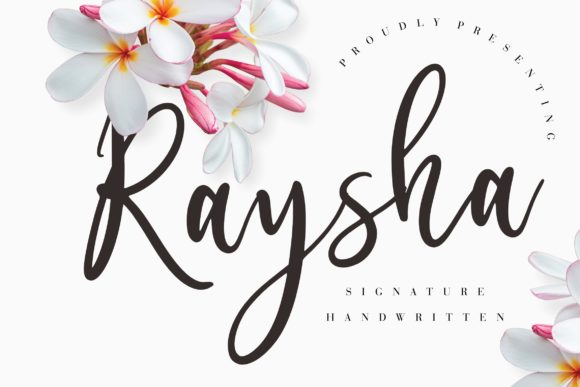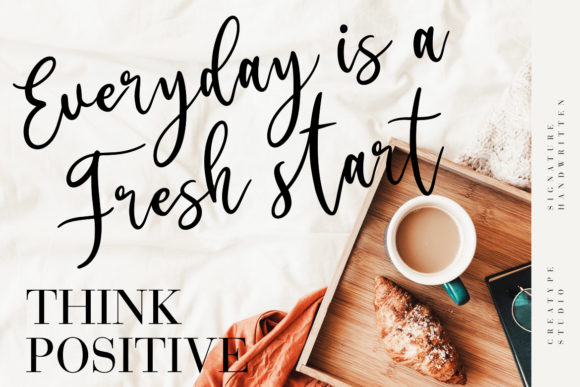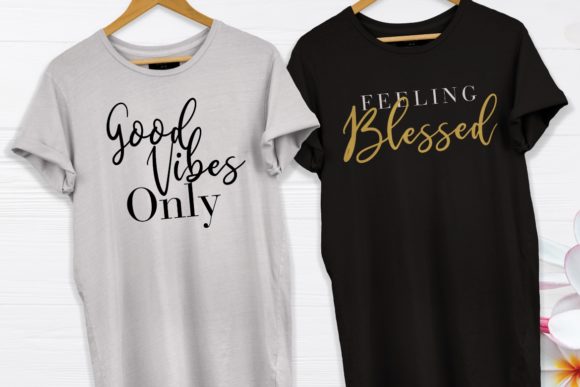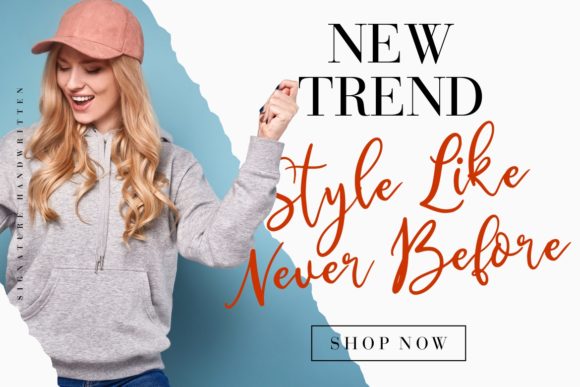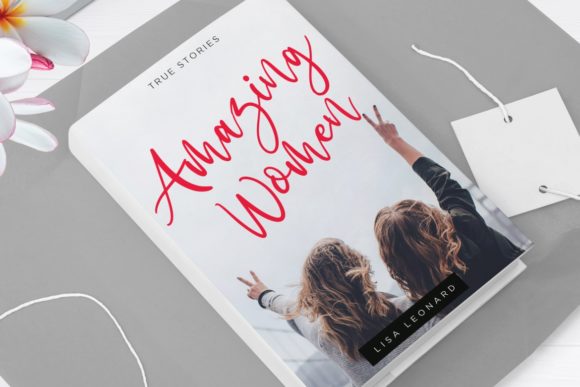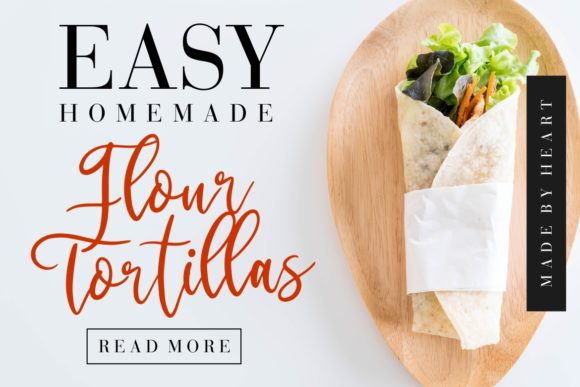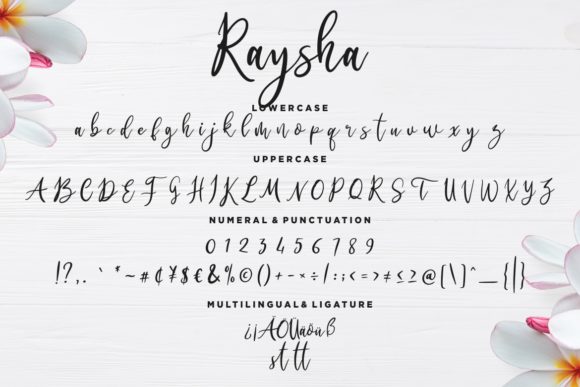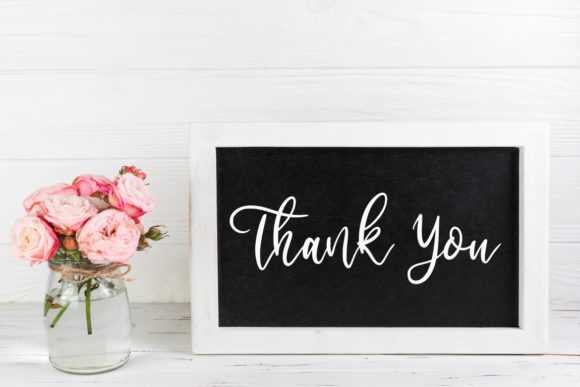
Raysha Font
About Raysha Font
Raysha is a timeless and elegant handwritten font. It looks lovely on wedding invitations, thank you cards, quotes, greeting cards, logos, business cards and every other design which needs a handwritten touch.